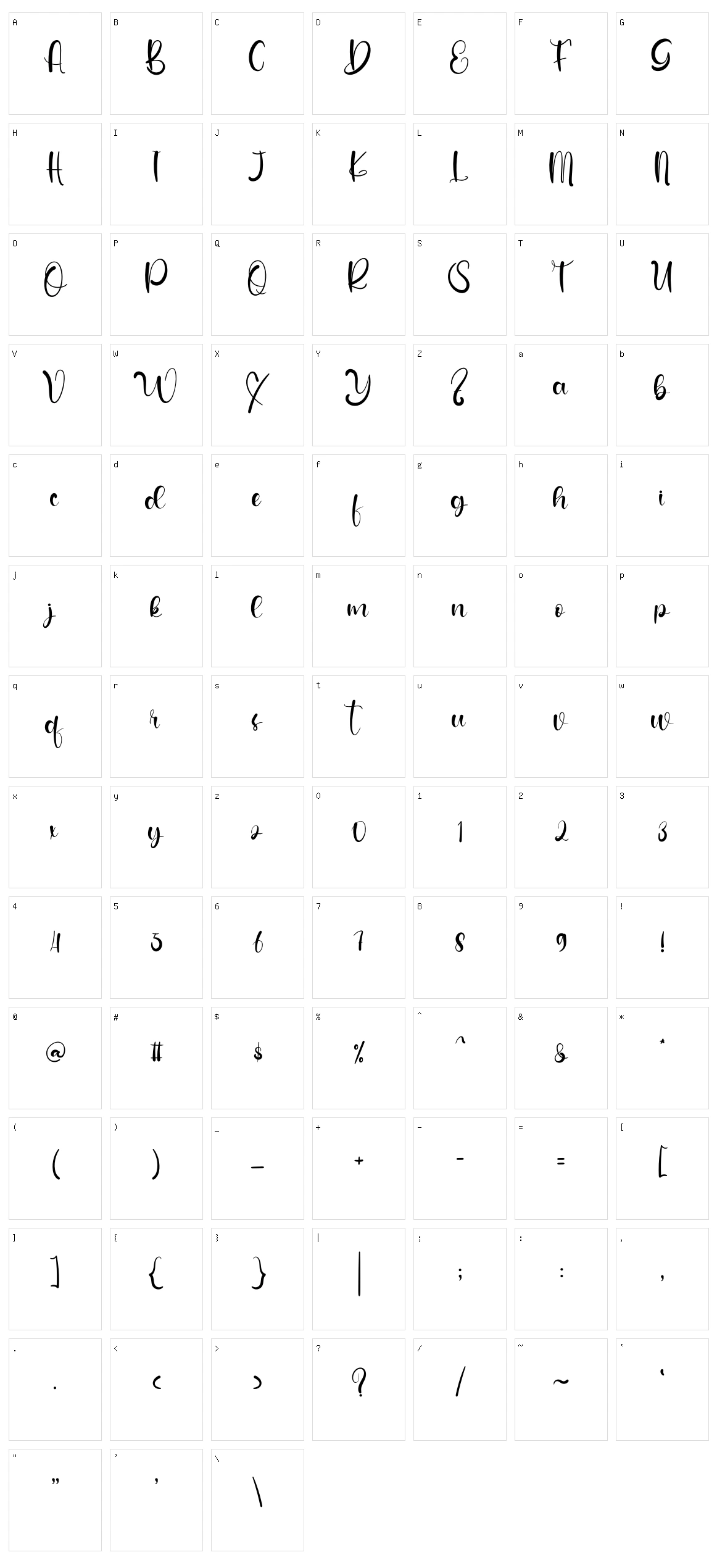
The free font Drinks is carefully designed by PiPi Creative, showcasing a thoughtful balance of creativity and usability and falls under the Script font style. When you download the ZIP file, it contains only 78.91 KB of font files, making it lightweight and quick to download. Please review the license details below to understand permitted usage and distribution rights. If license information is not available, we recommend using this font for personal projects only or contacting the author directly for commercial usage permissions.